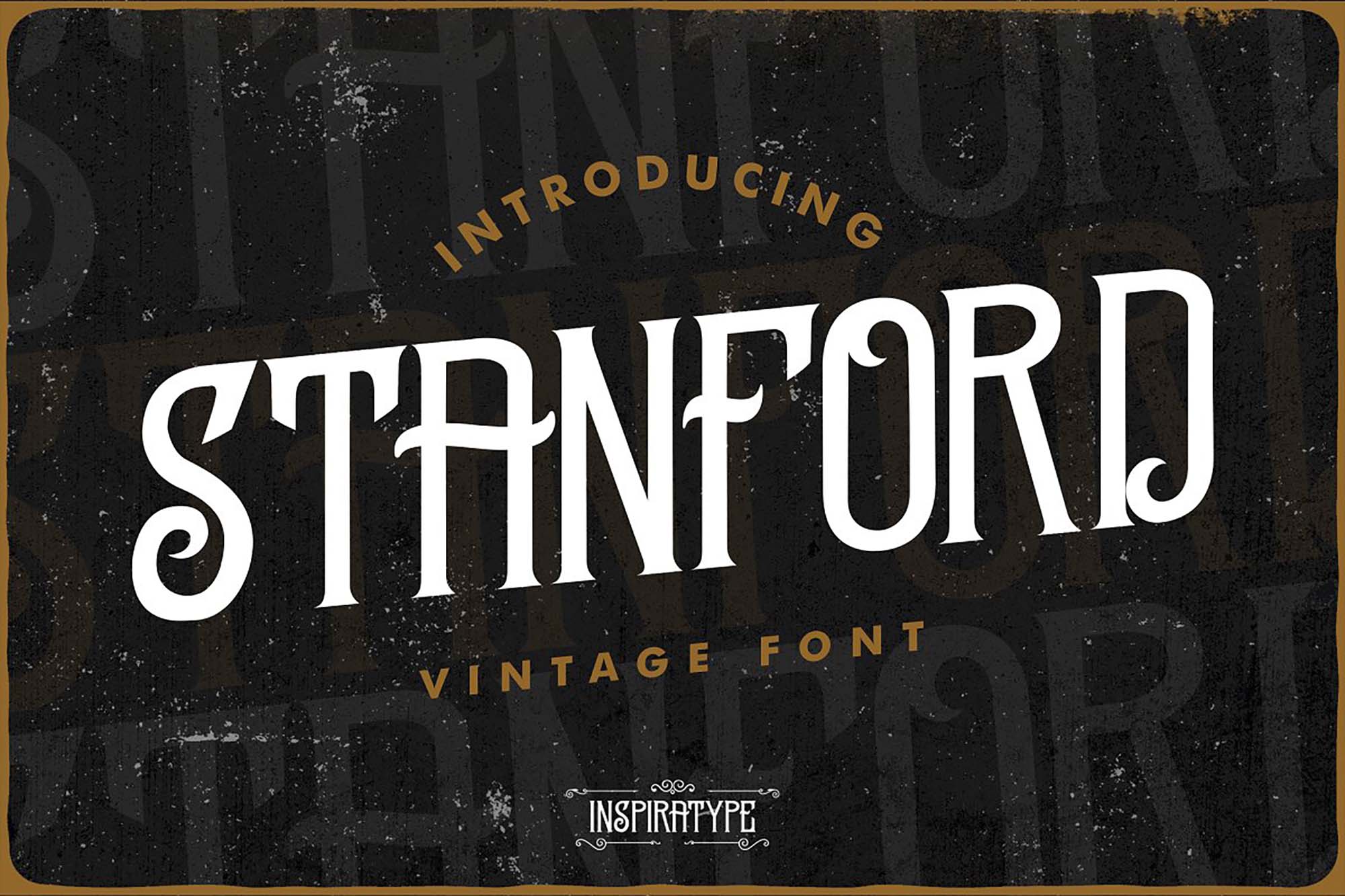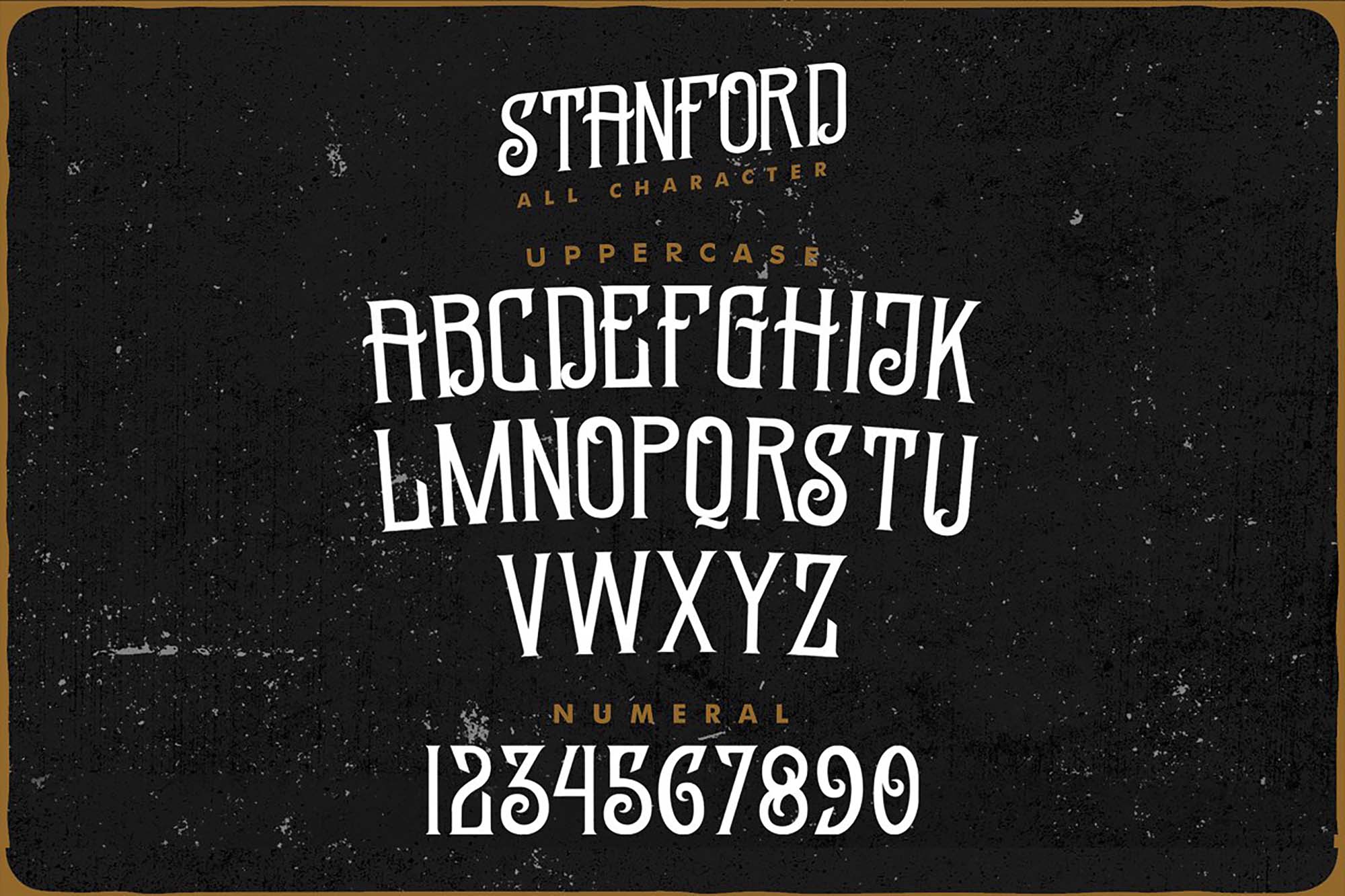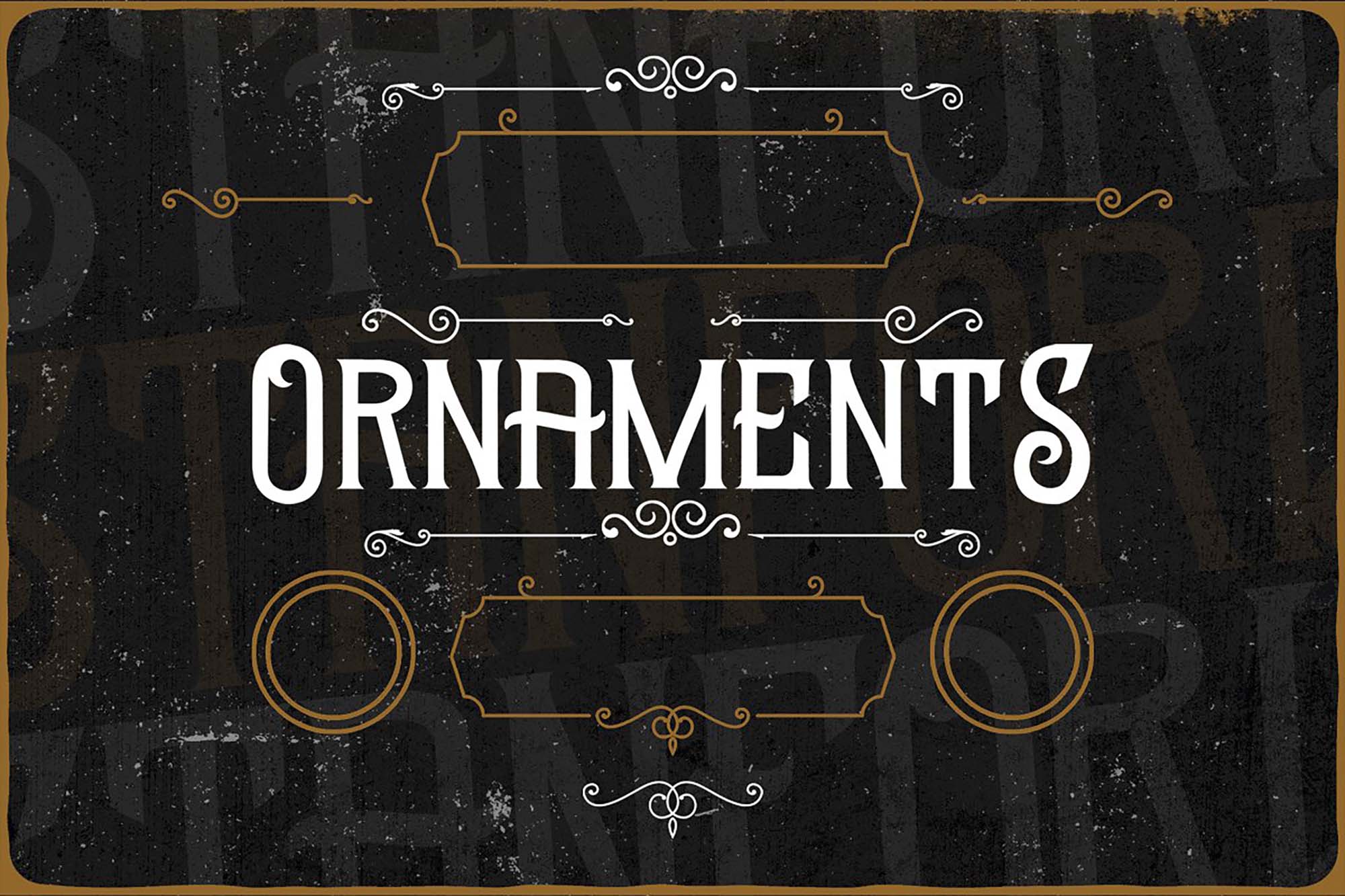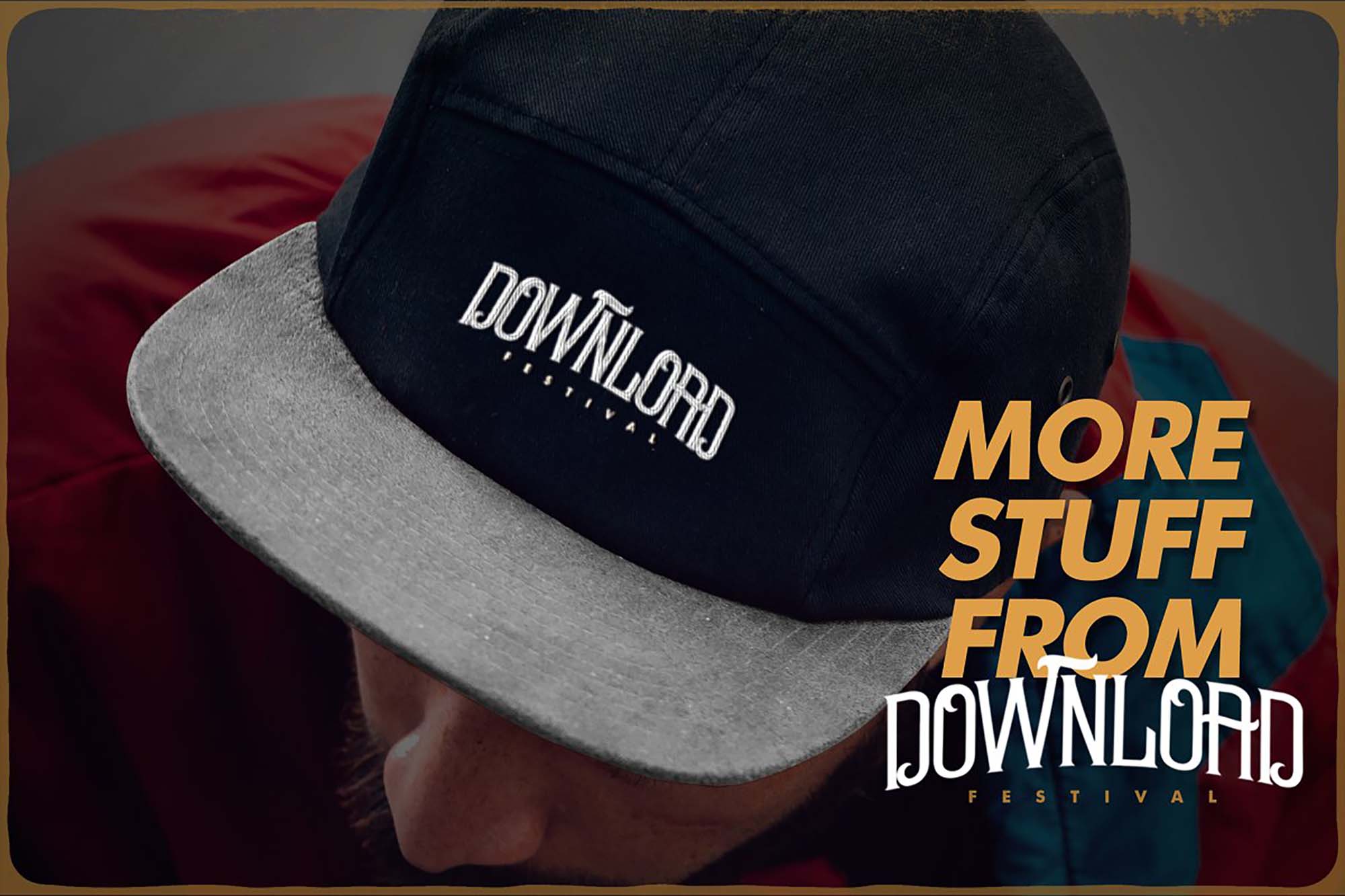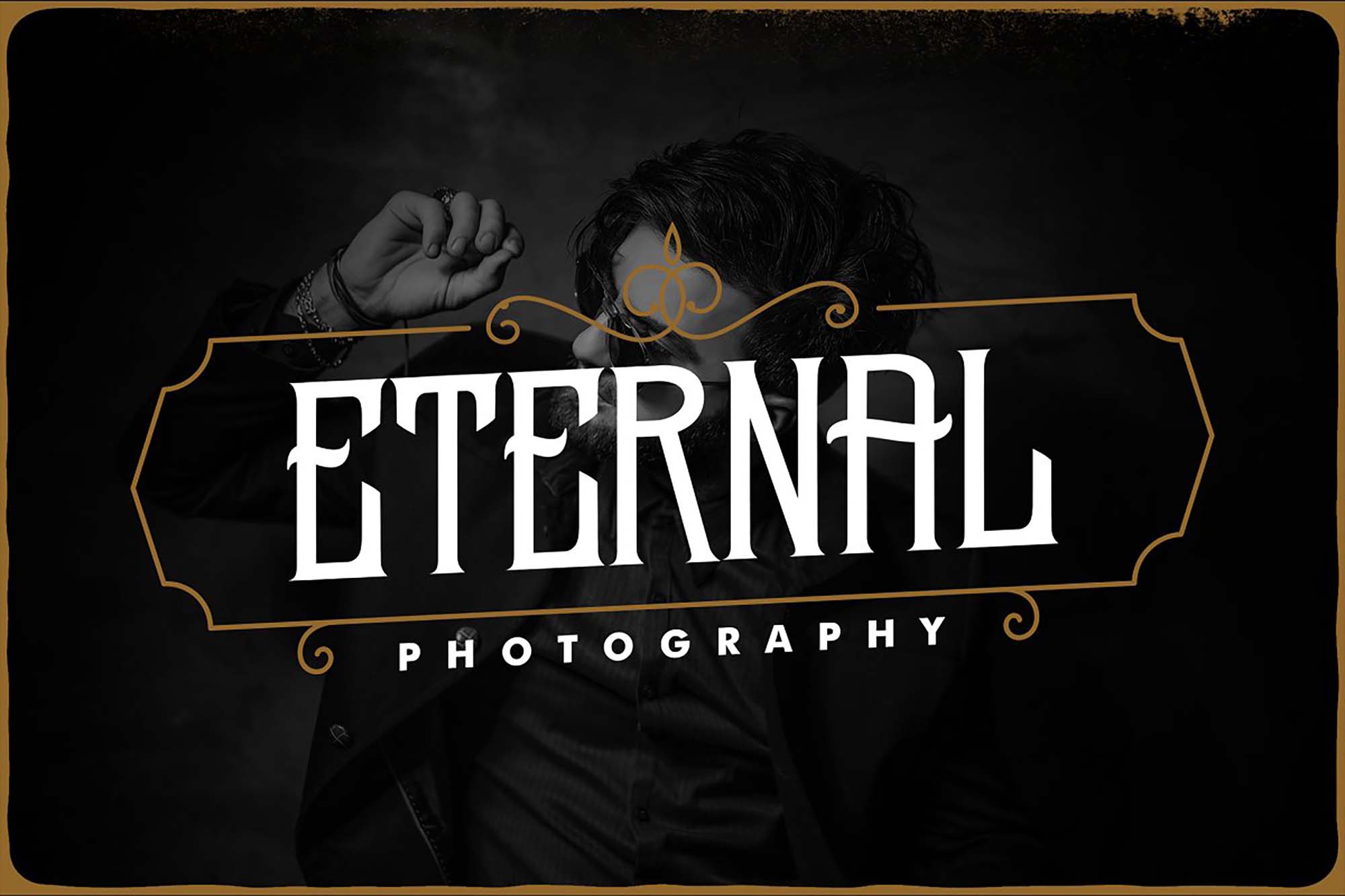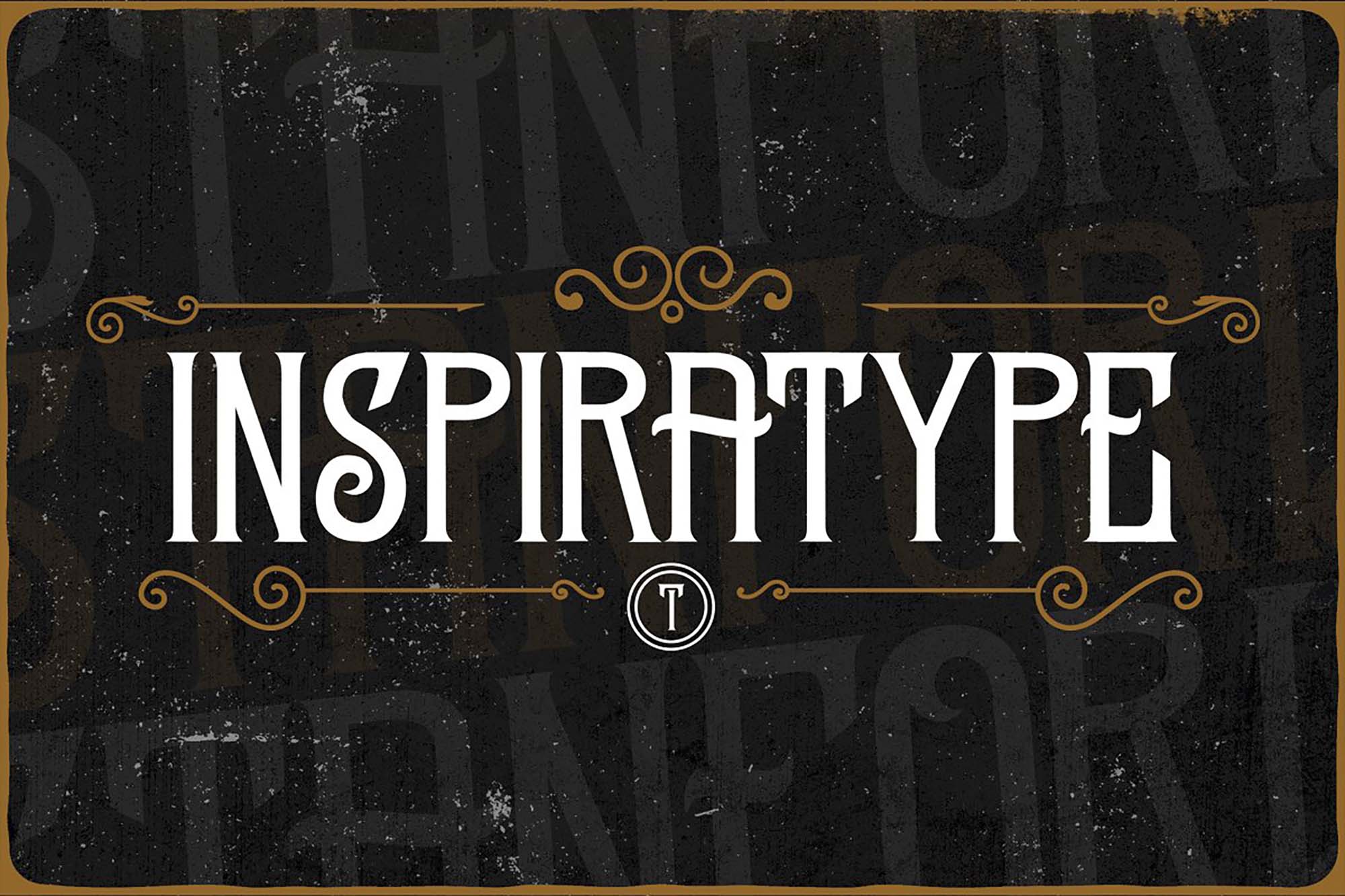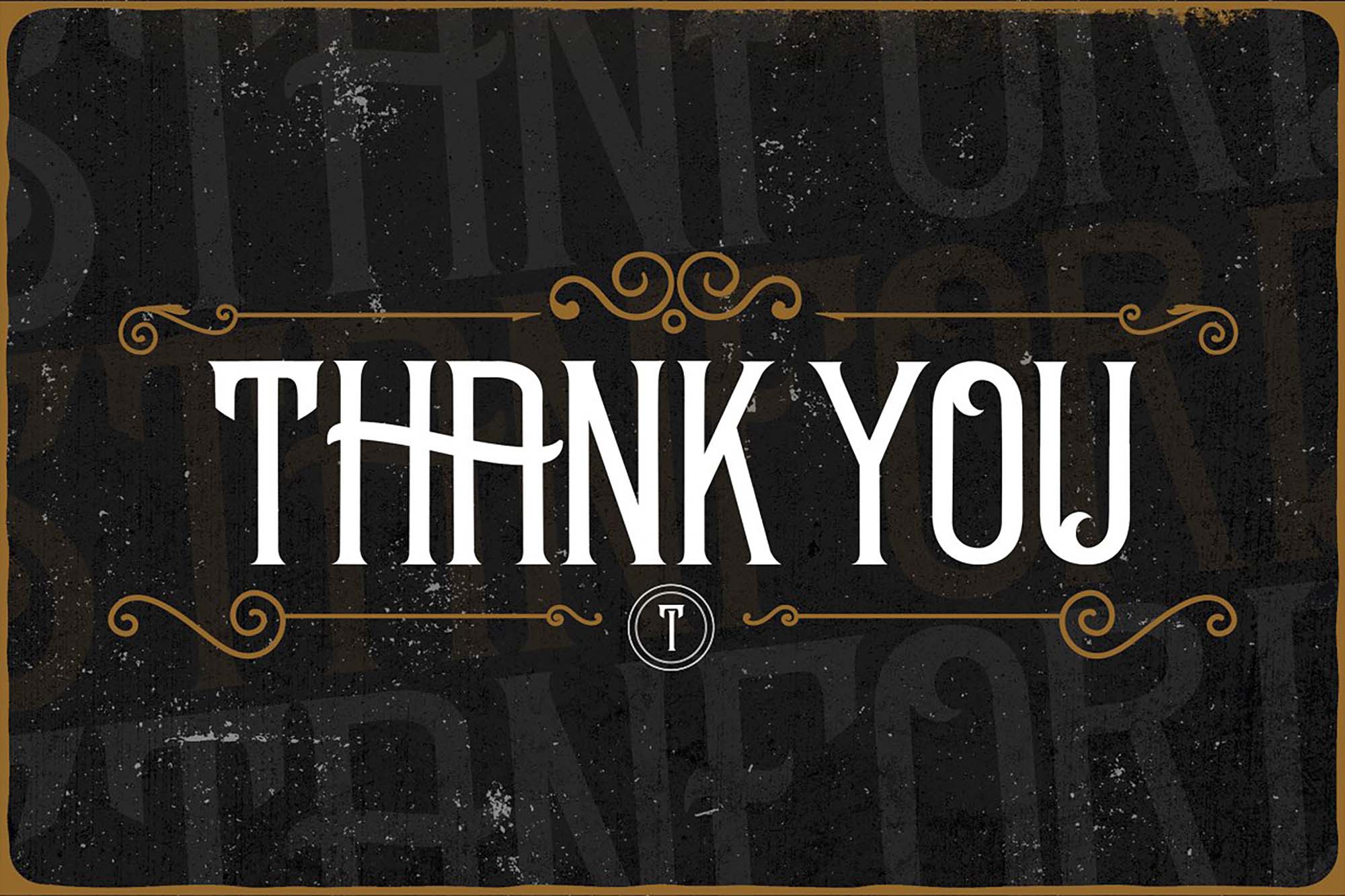
Standford Vintage Font
This is a unique stylish Standford vintage font. This font is perfect for adding a personal charm to your logos, branding, social media, advertisements, invitations, product designs, product packaging, etc. Have fun using it!